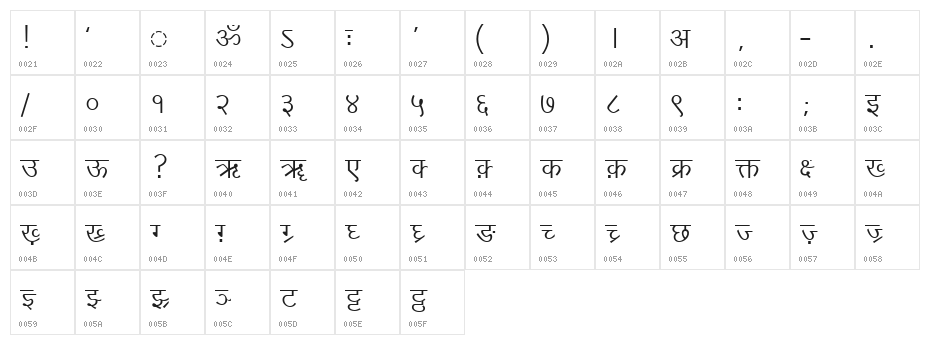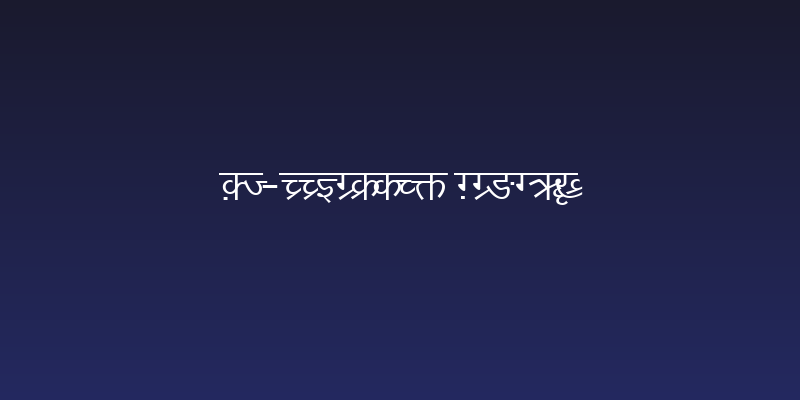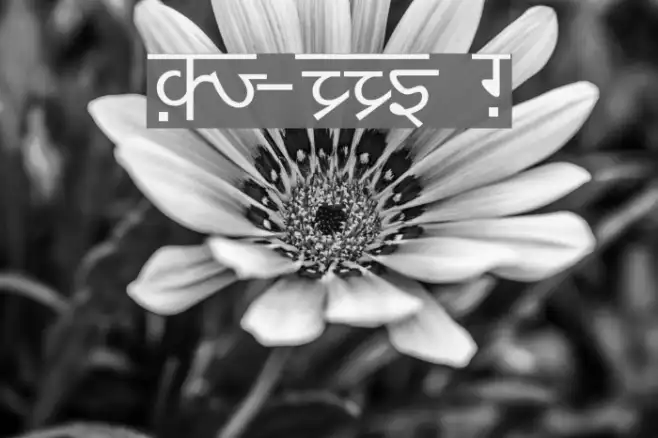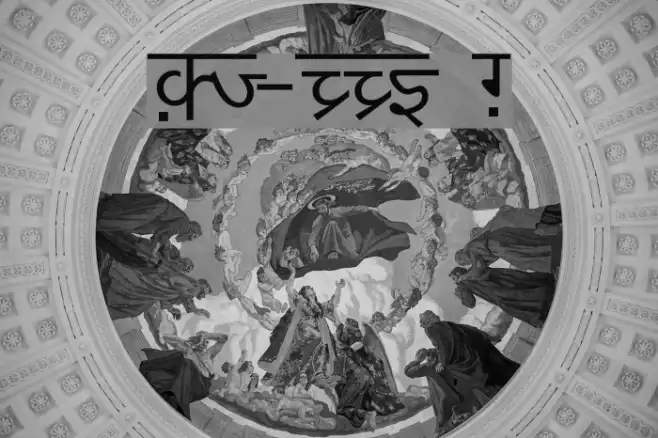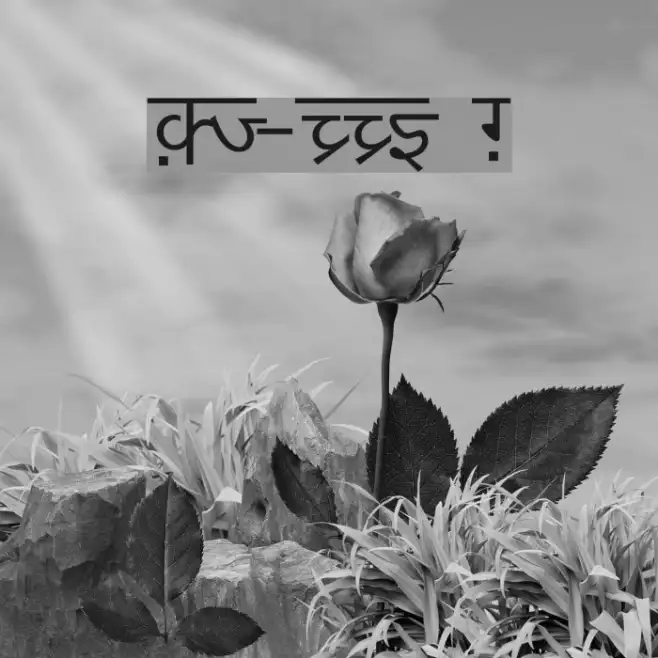
DV-TTYogesh Normal Font
DV-TTYogesh Normal Description
This font features a traditional Devanagari script style, characterized by its distinct horizontal line running across the top of the characters, known as the 'Shirorekha'. The characters are well-defined with moderate stroke contrast, providing a clear and readable appearance. The design maintains a balance between traditional aesthetics and modern readability, making it suitable for a variety of applications. The numerals and special characters are harmoniously integrated with the script, ensuring consistency throughout the font. The overall style is elegant and culturally rich, reflecting the heritage of the script.
| Overall Style | Traditional |
| Use Case | Headlines, Body text, Cultural publications |
| Proposed Projects | Ideal for cultural publications, educational materials, and digital content that require a traditional yet readable Devanagari script. |